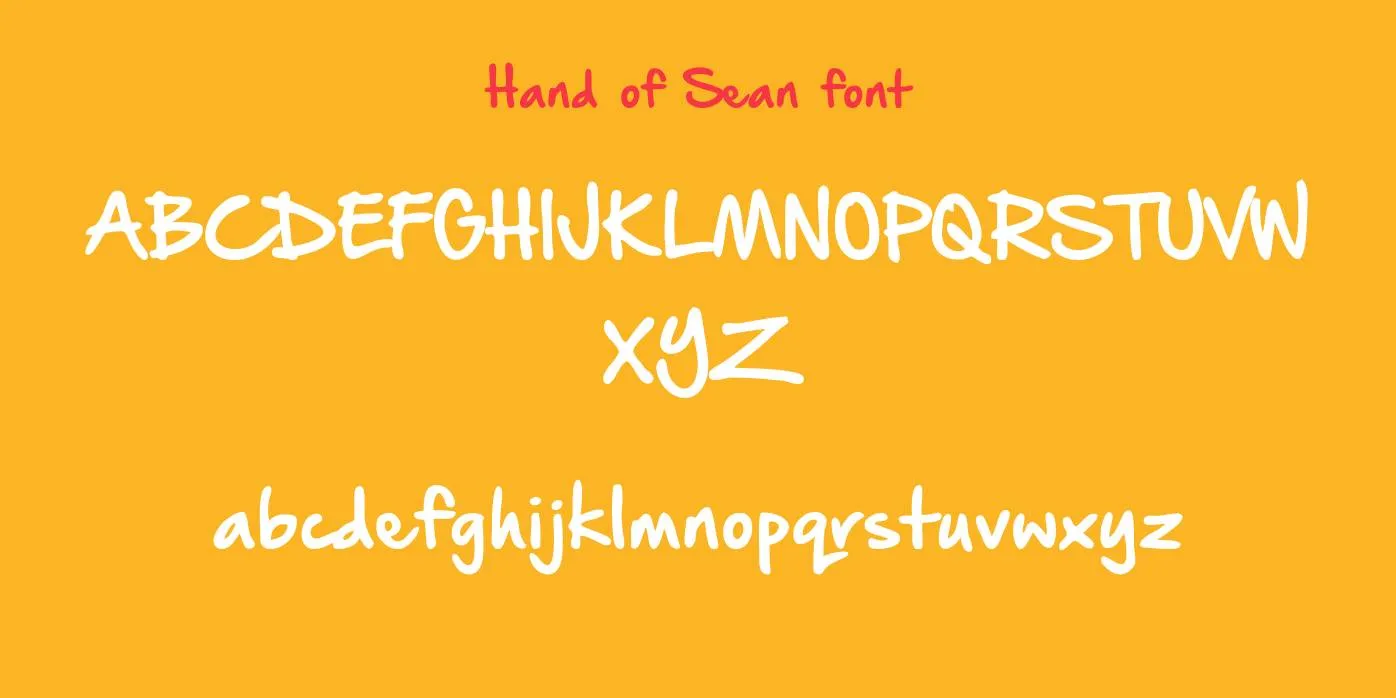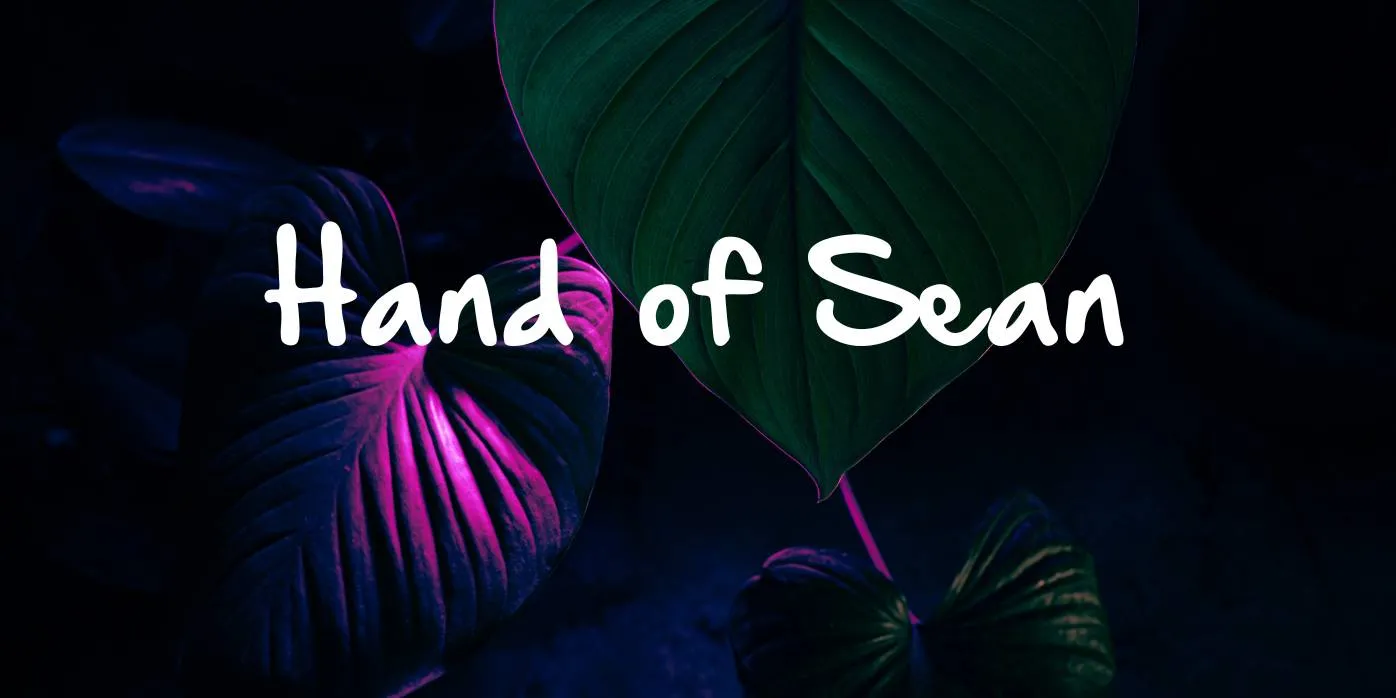
Hand of Sean Font
The Hand of Sean Font is a very amazing handwritten font. It was designed by Sean Johnson. The weight of the font is normal and the width of this font is medium. It can also be paired with other fonts to give an attractive look like baby doll font.
You can use it for making covers of fashion magazines to give an attractive look. This font has small letters, capital letters, numbers, special characters, symbols, punctuations, and characters. It can also be used for product packing and making photography albums. It is also a good choice for making website designs.
This font is also used for printing designs on fabrics. You can use it for making attractive logos, brochures, flyers, and amazing book cover designs. It is commonly used in Adobe Photoshop and other Adobe applications. You can use this for both types of media print and digital.
Its initial release date is 17 May 2008. What is the Hand of Sean font used for? This is a very amazing font and can be used for making so many projects like for making large text projects and book designs, magazine covers, product packing, and much more. Is Hand of Sean a professional font?
Yes, it is a professional font. It can be used for making many projects and different designs related to print and digital media. Is Hand of Sean a script font? Yes, It is a script font and has simple and semi-bold features that can be used to make so many projects attractive look.